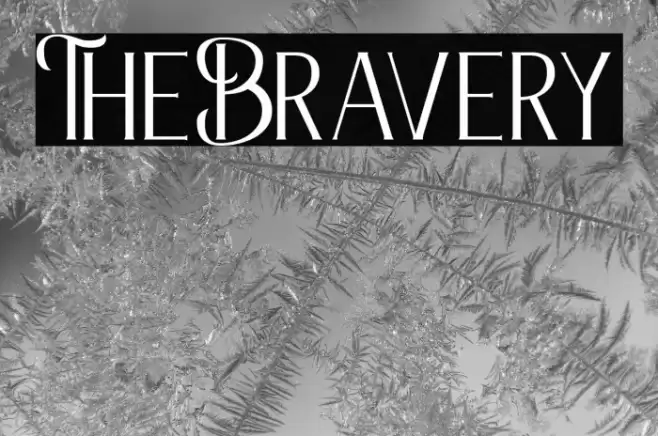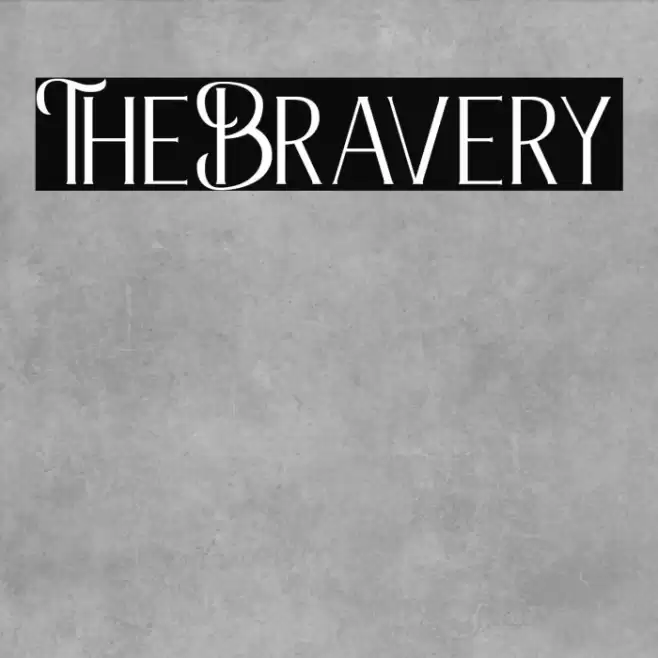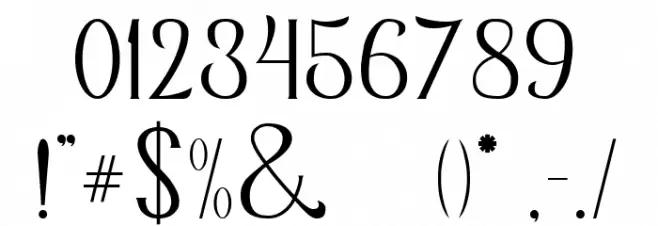
TheBravery Font
TheBravery Description
This font features a unique blend of decorative and classic elements, with uppercase letters showcasing elegant swirls and flourishes that add a touch of sophistication. The lowercase letters maintain a more straightforward design, providing a balanced contrast. The numerals are bold and clear, ensuring readability. Special characters are creatively designed, enhancing the font's overall artistic appeal. This font is perfect for projects that require a touch of elegance and creativity, such as invitations, branding, and decorative headings.
A decorative font with elegant swirls and classic elements, perfect for creative projects from Regular fonts.
- Proposed Projects: Ideal for wedding invitations, branding, decorative headings, and artistic designs.
- Use Case: Headlines, Logos, Invitations